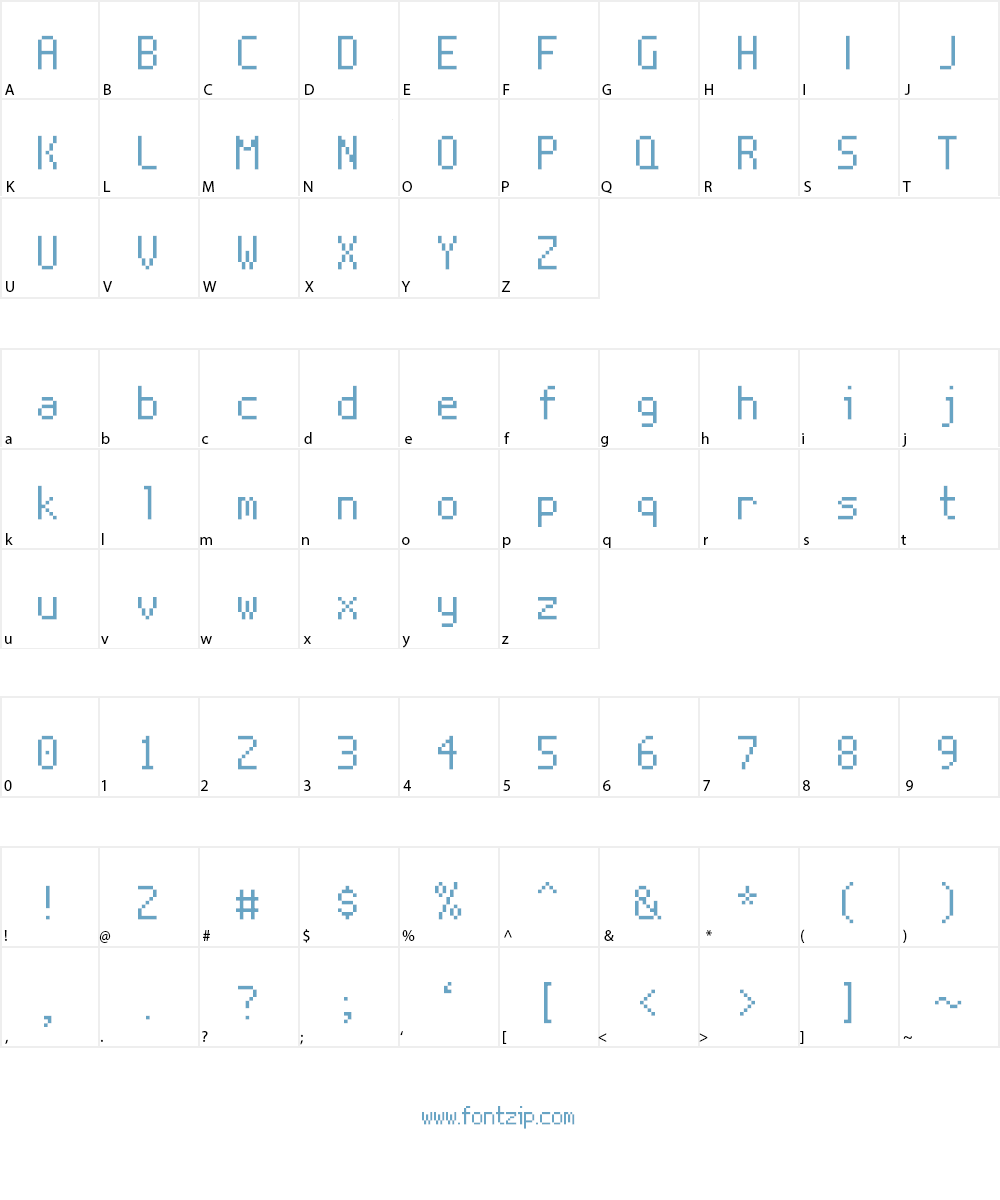
Just like the name implies, this typeface is 9 grid tiles high by 5 grid tiles wide in FontStruct. Contains elements of Klavika, Neo Sans, and Glasstown NBP.